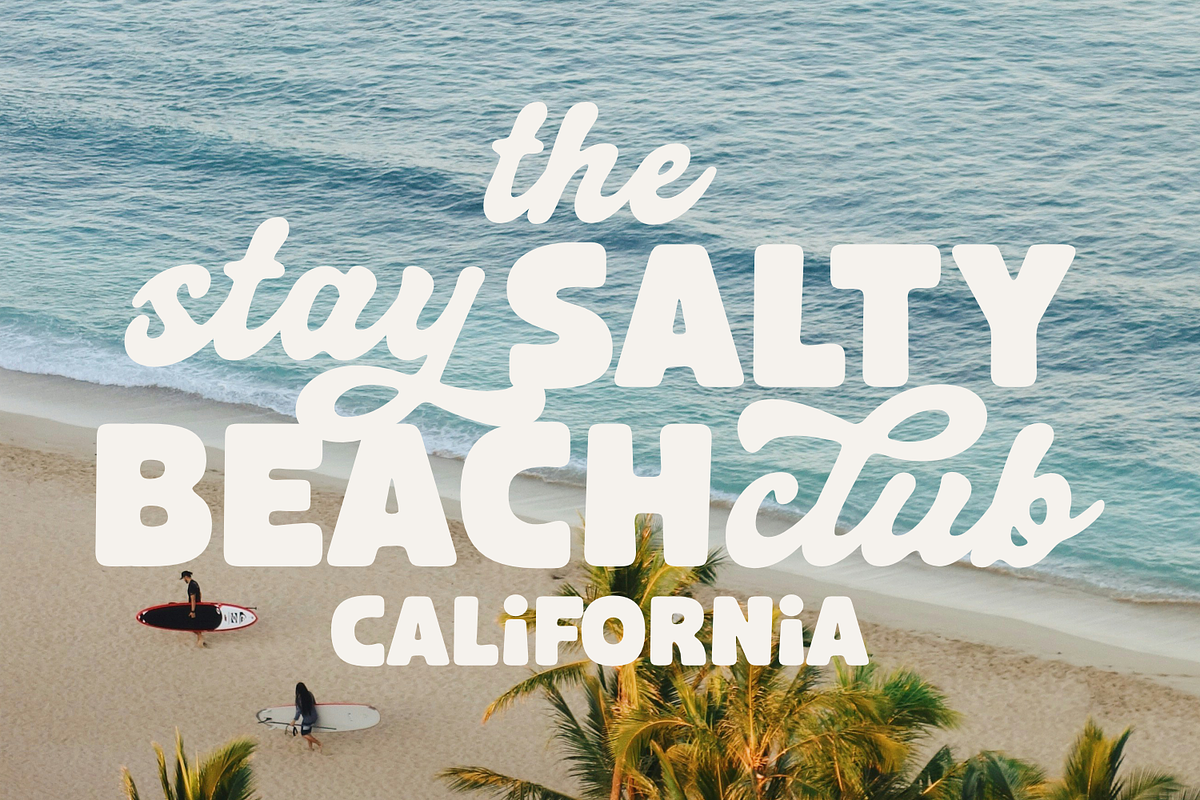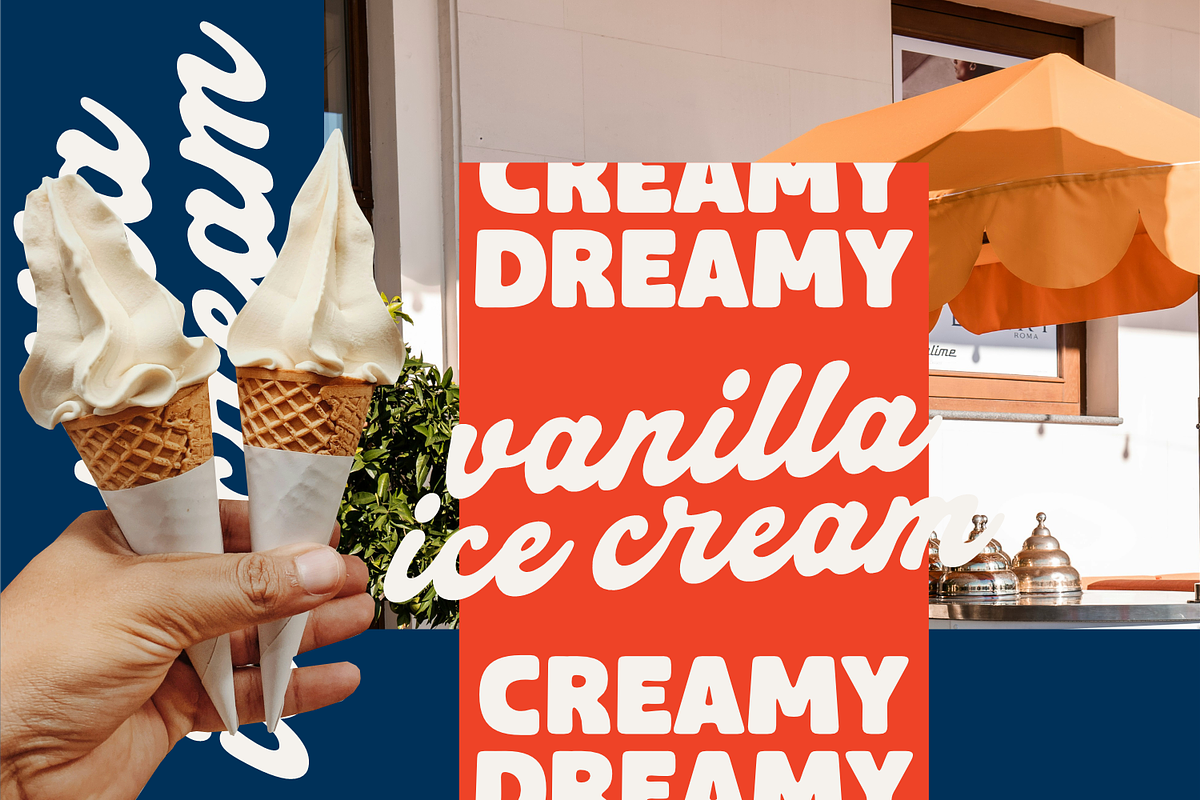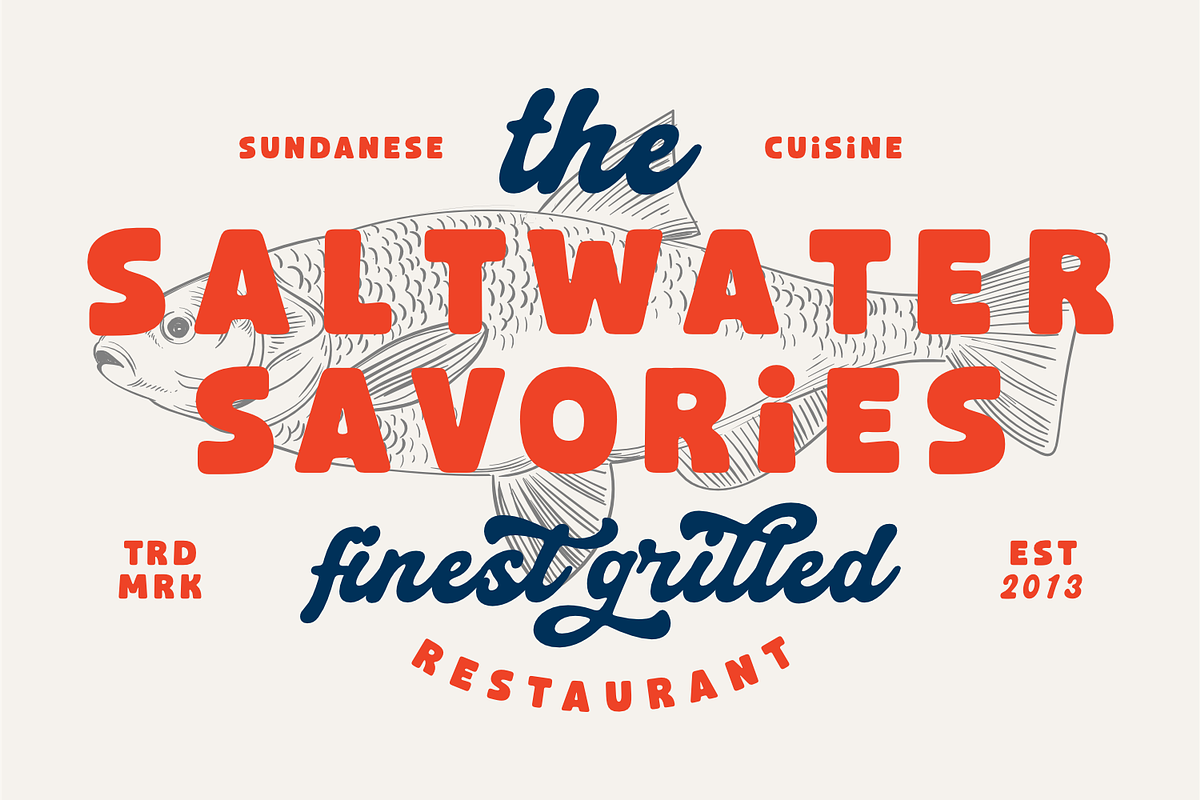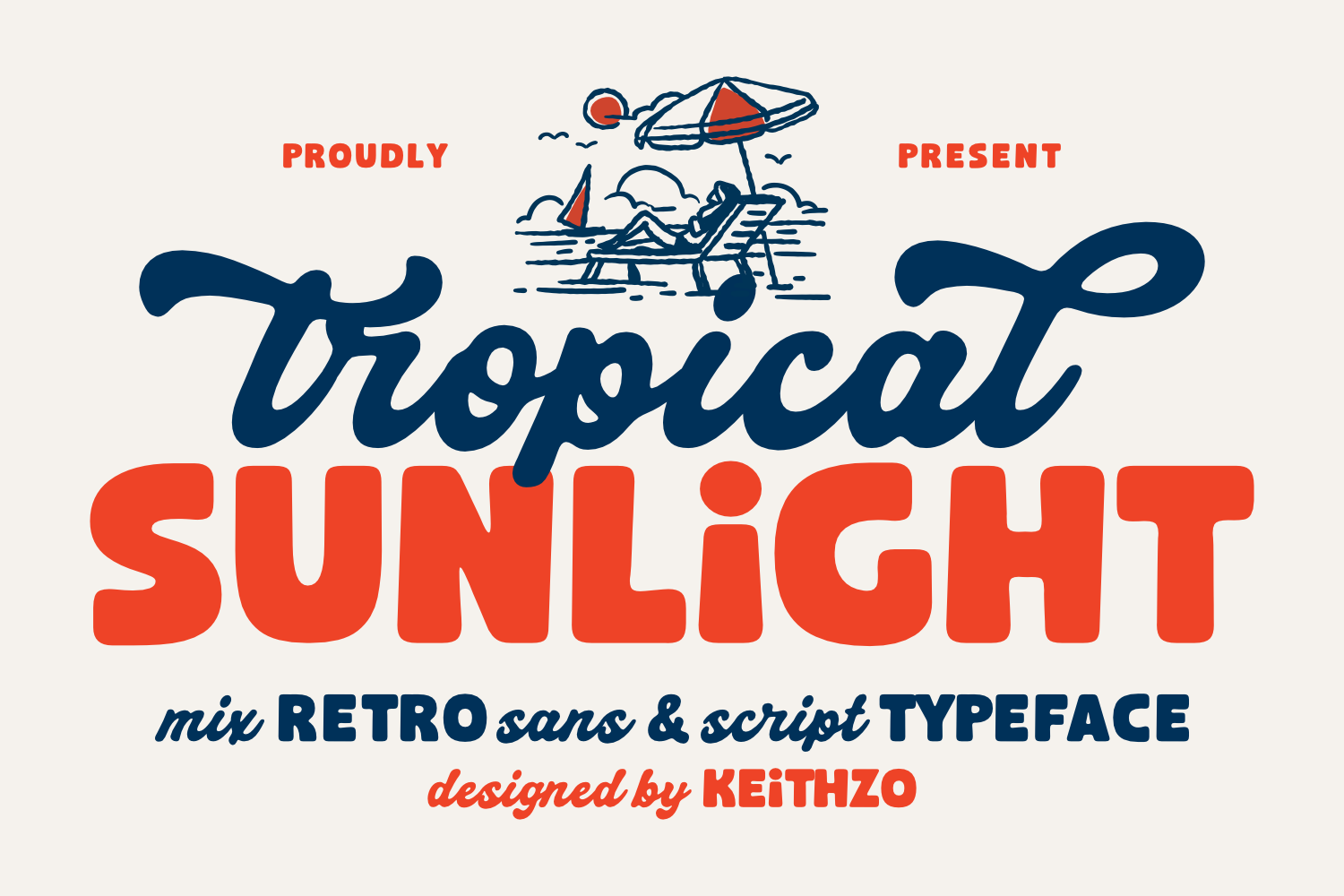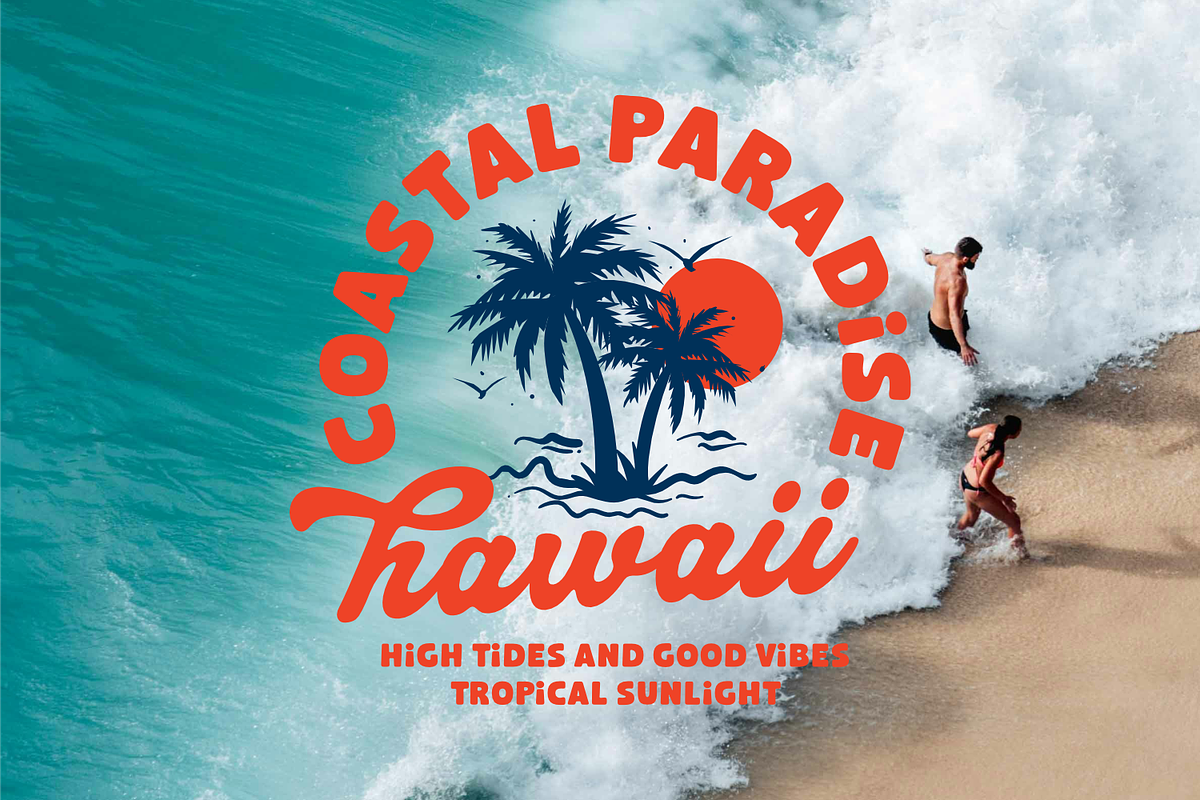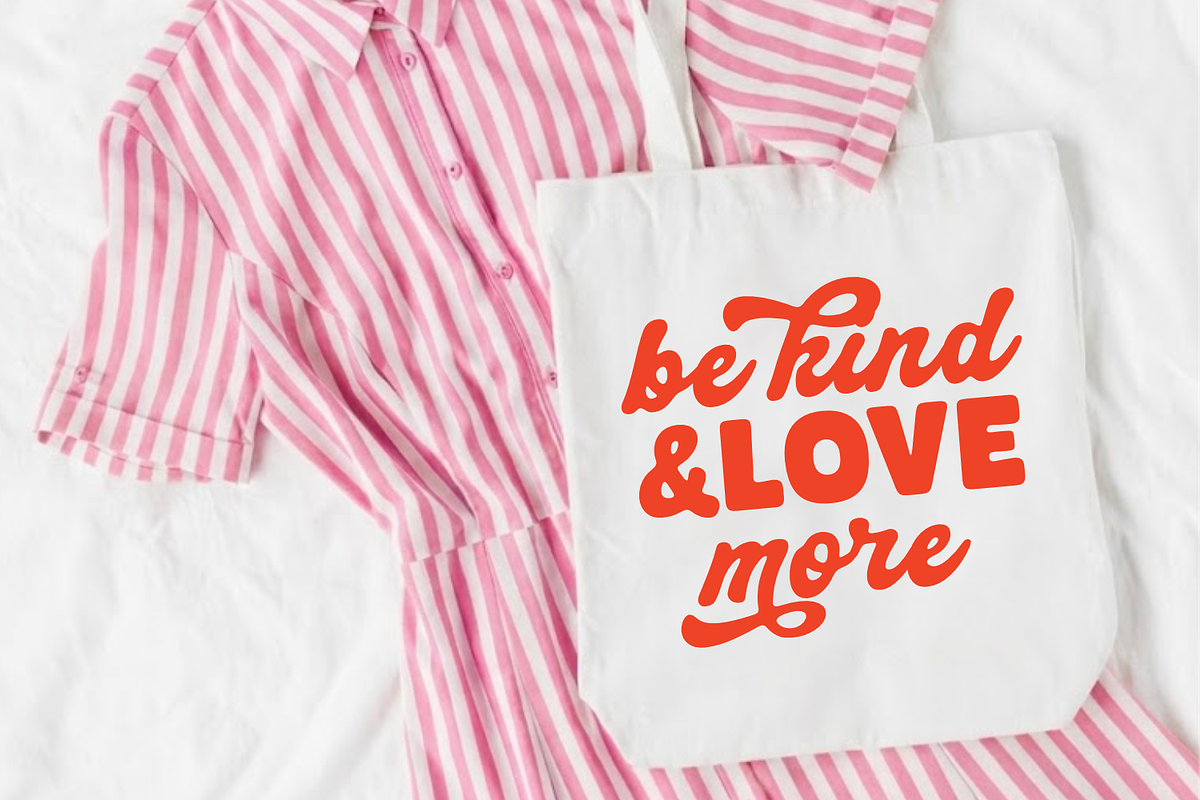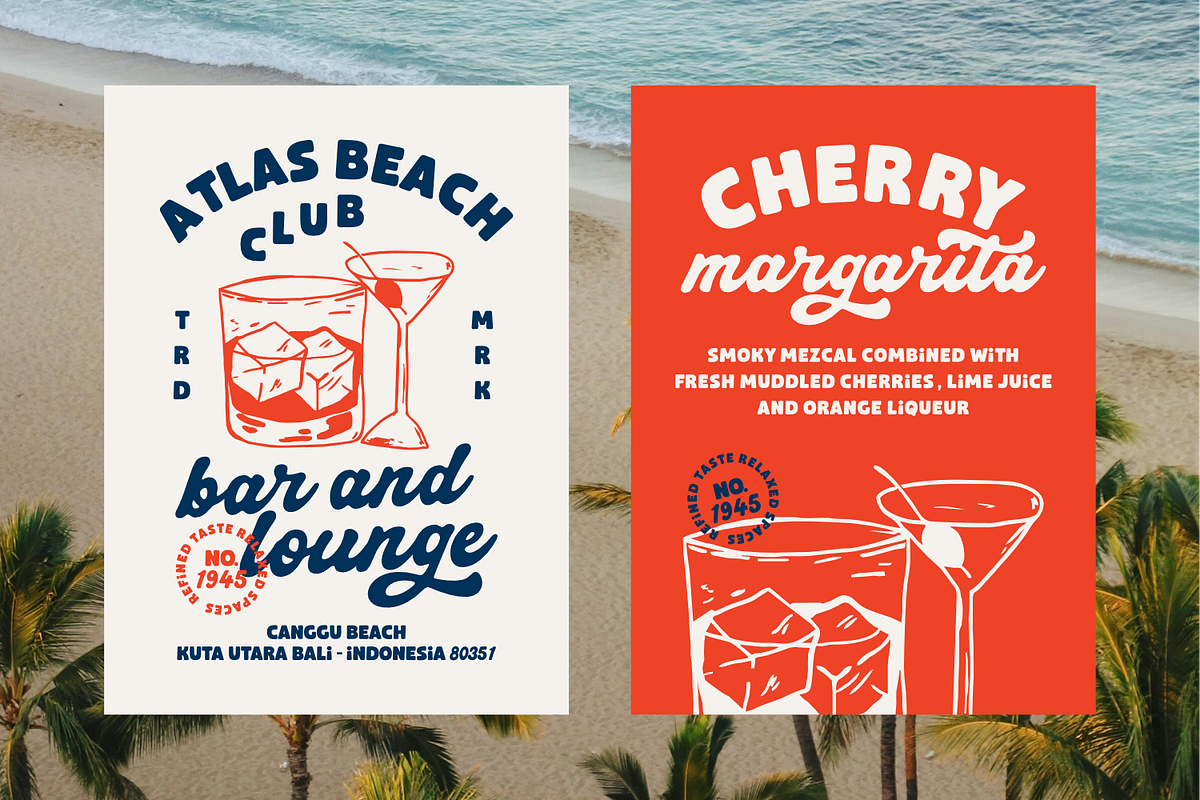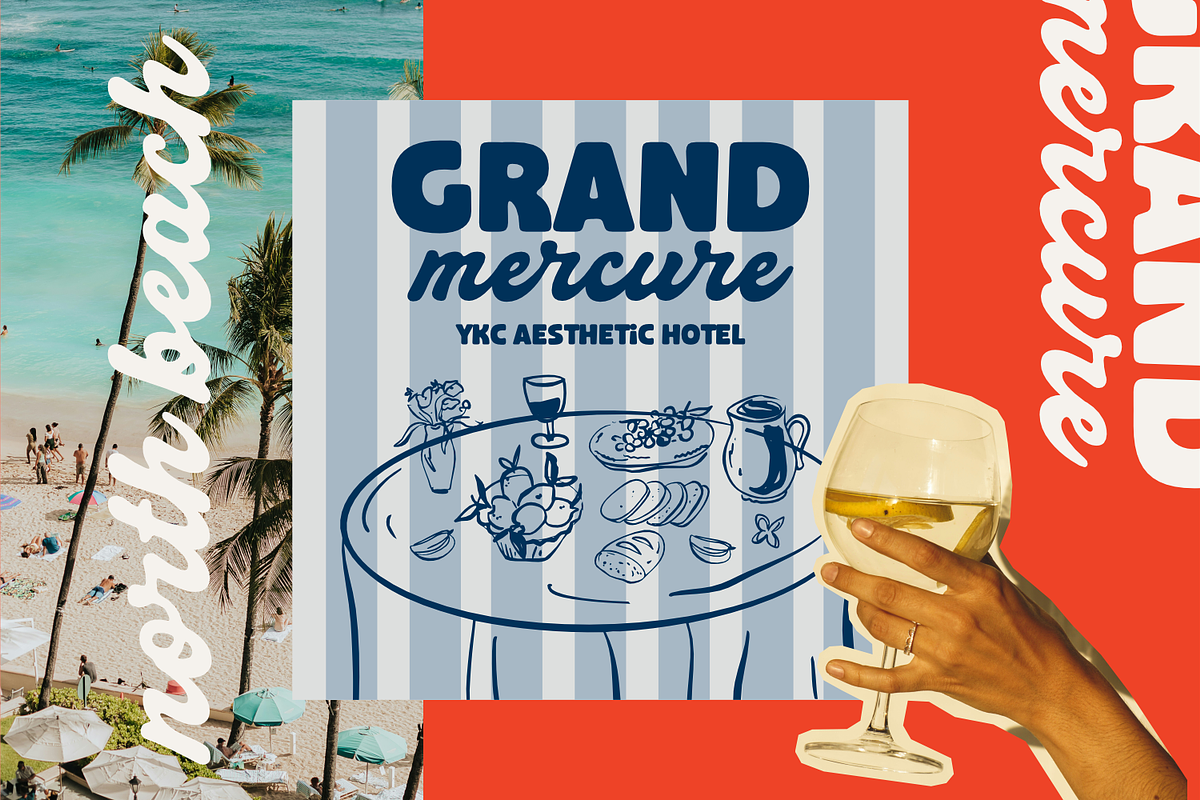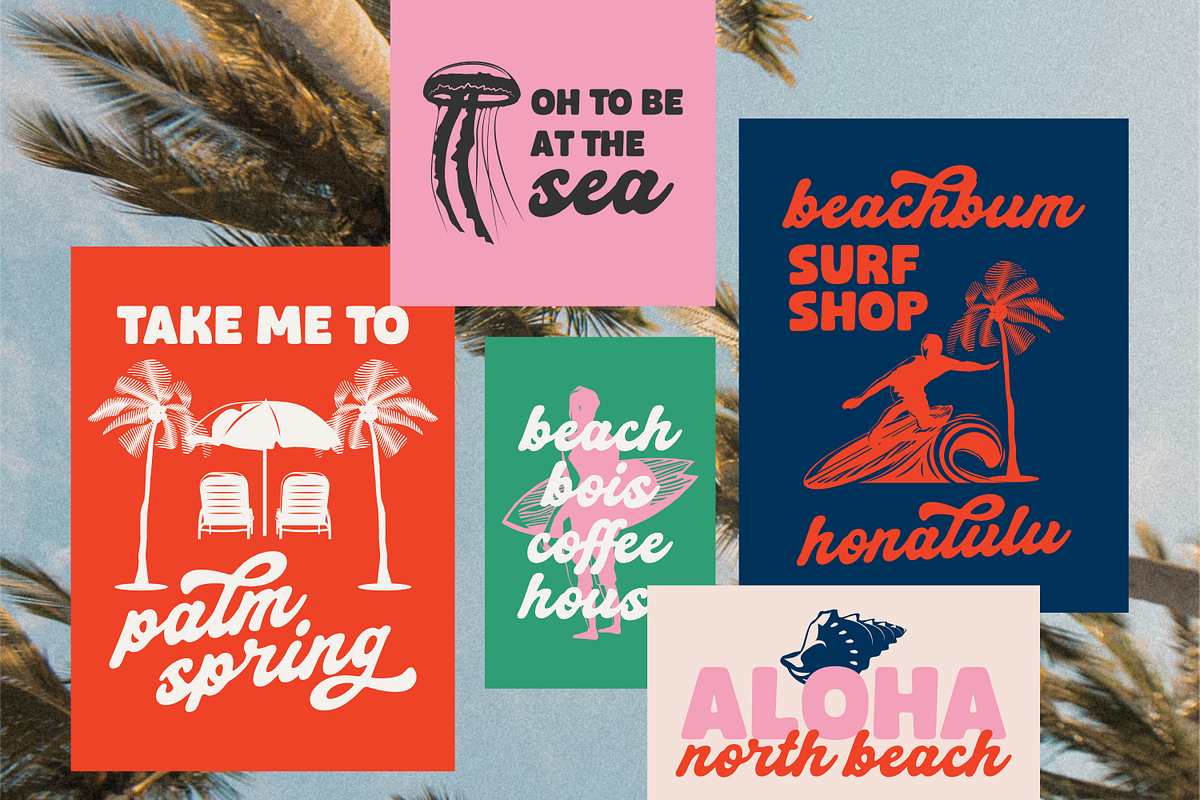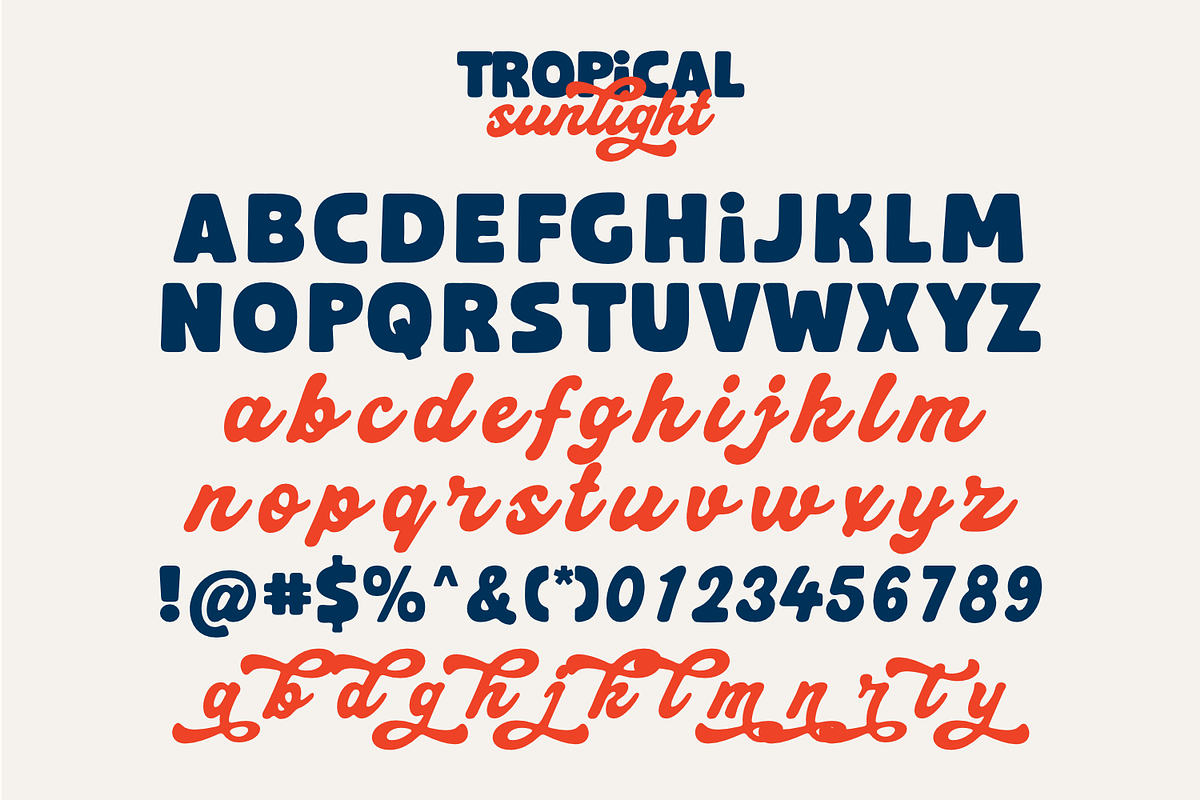
Tropical Sunlight - Mix Retro Font
Tropical Sunlight Mix Retro Sans & Script Font
Bring the warm, laid-back charm of a vintage coastal paradise straight to your design canvas! Tropical Sunlight is a perfectly matched typographic duo combining a heavy, rounded retro sans-serif with a fluid, sweeping cursive script.
Designed to evoke 1970s beach club aesthetics, surf shop signage, and sun-drenched resort branding, this pair gives you instant typographic hierarchy and effortless vintage contrast.
Craft memorable cocktail menus, beach bar logos, seafood restaurant signage, and resort marketing collateral, Create high-converting print-on-demand graphic tees, hoodies, and canvas tote bags for coastal lifestyle brands.
Give ice cream tubs, craft beverages, suncare lines, and summer treats a vibrant, retro-chic shelf presence, Design eye-catching summer festival posters, resort promotional flyers, travel postcards, and vacation social media graphics.